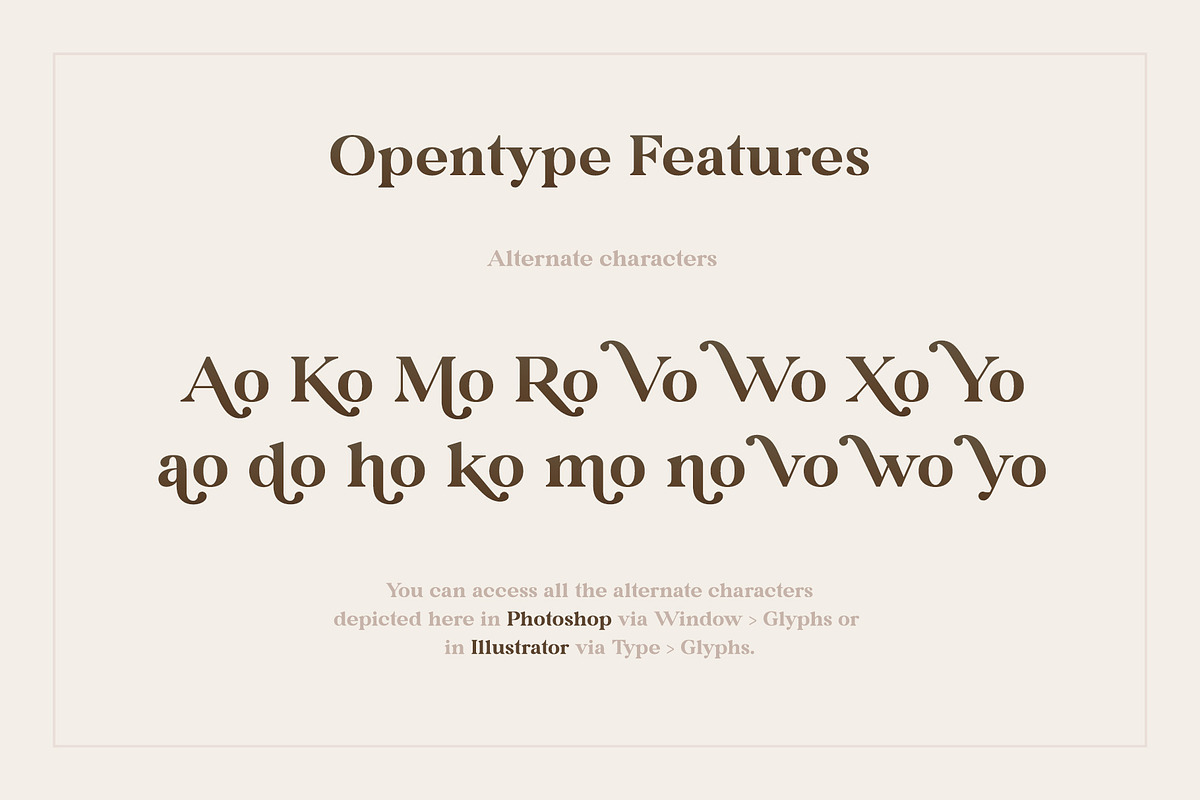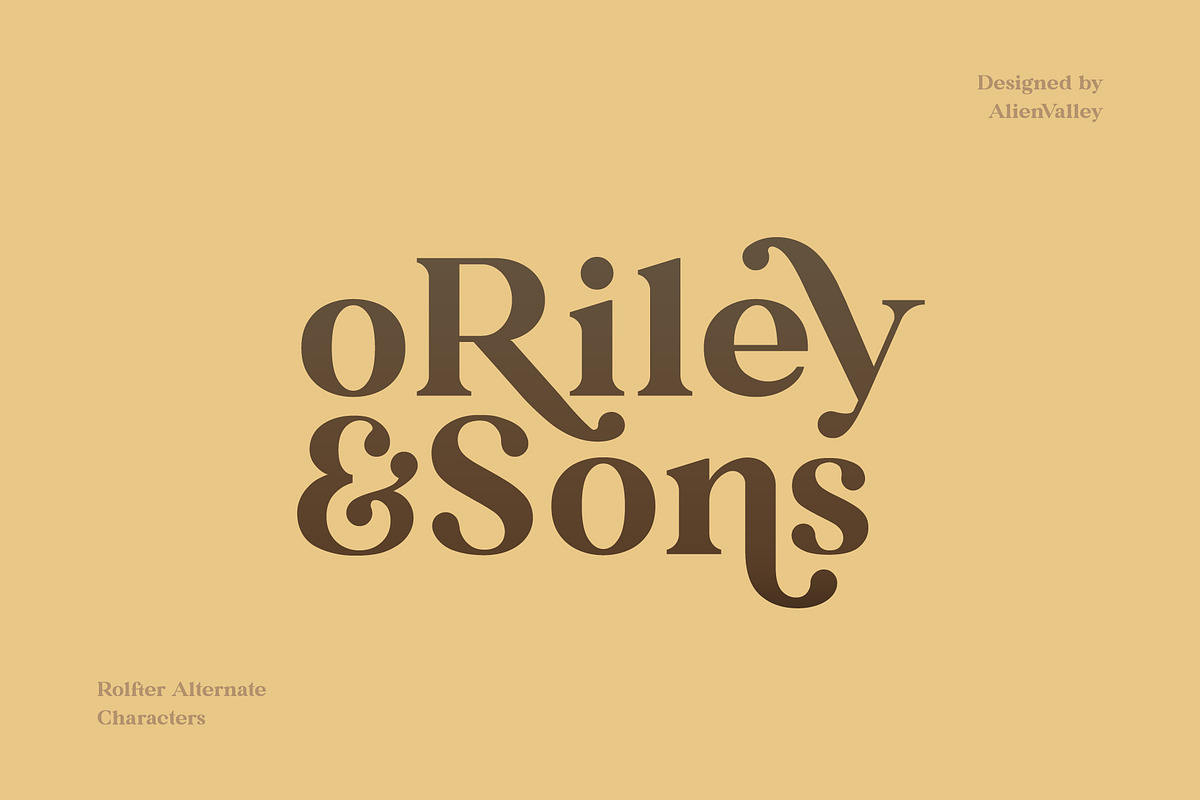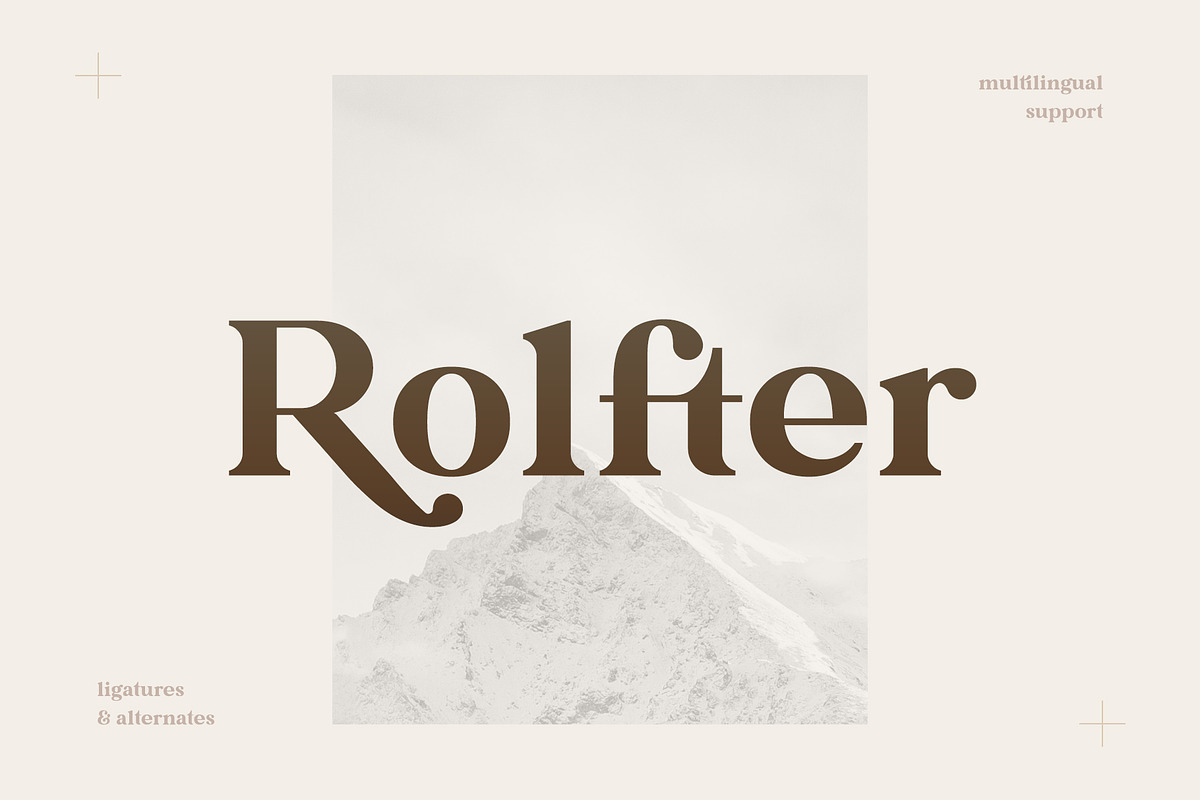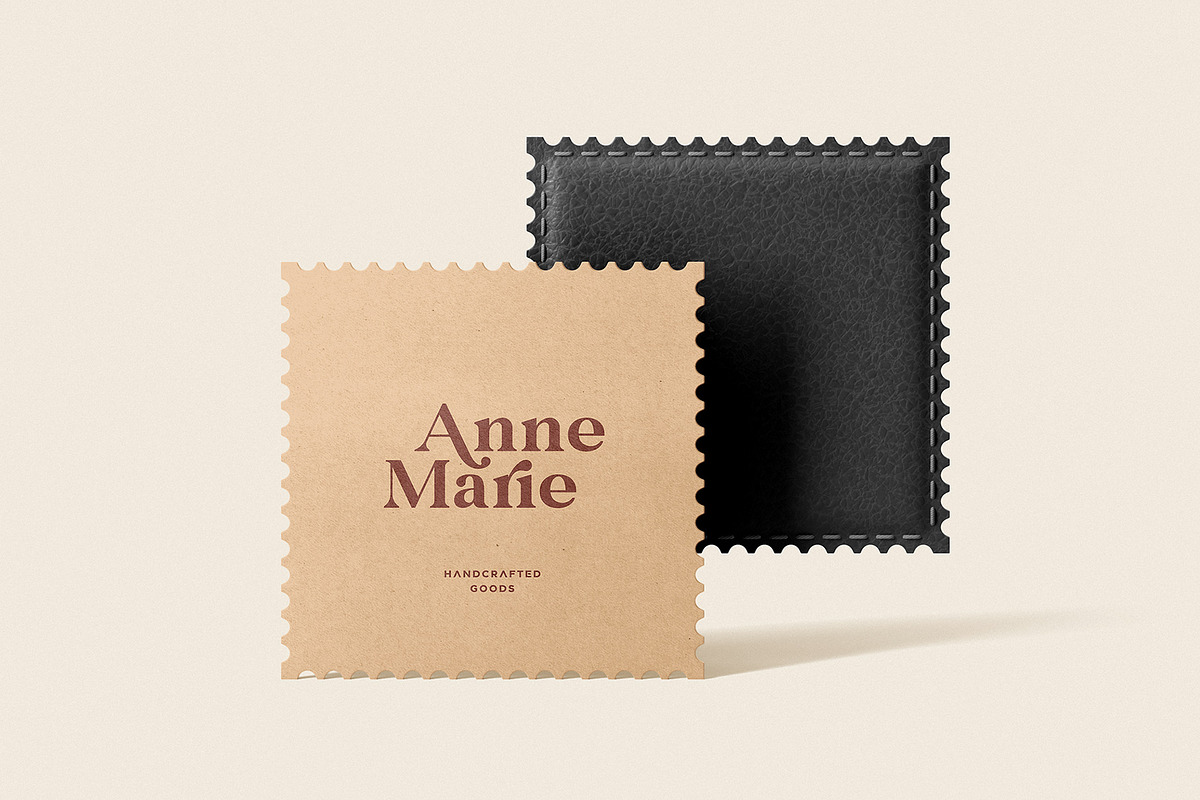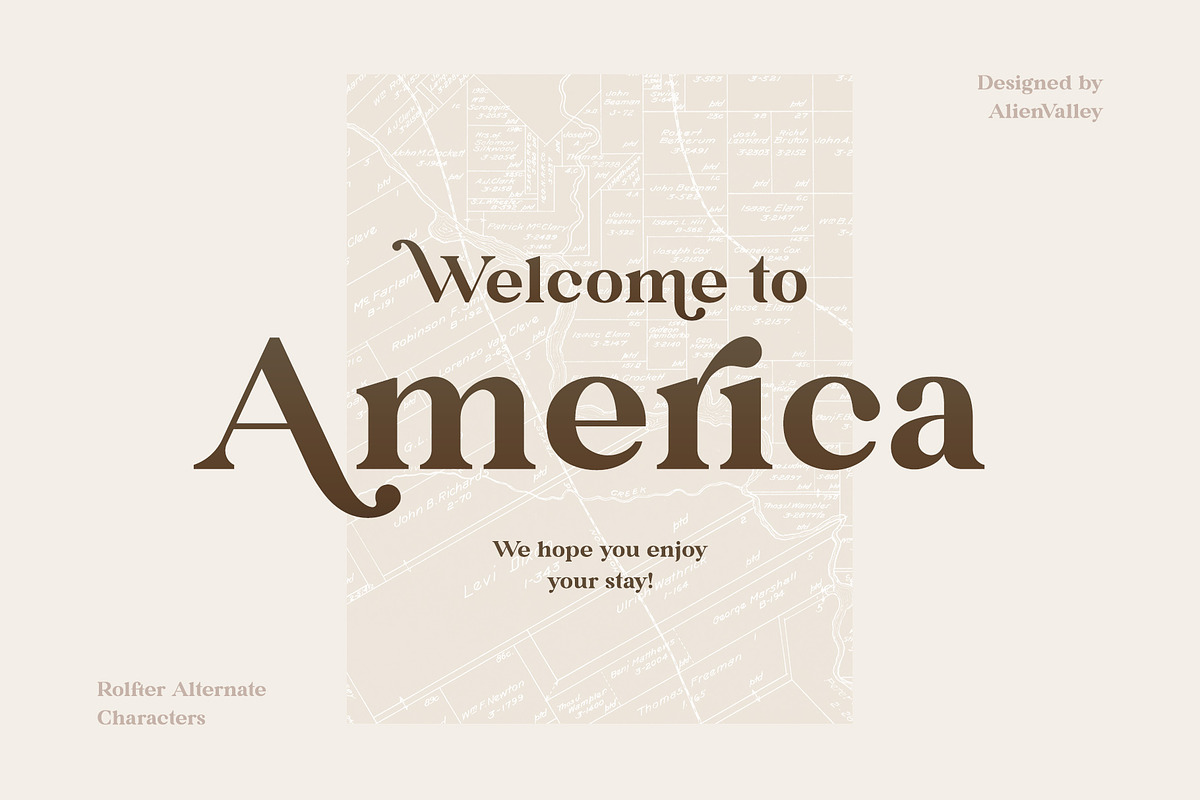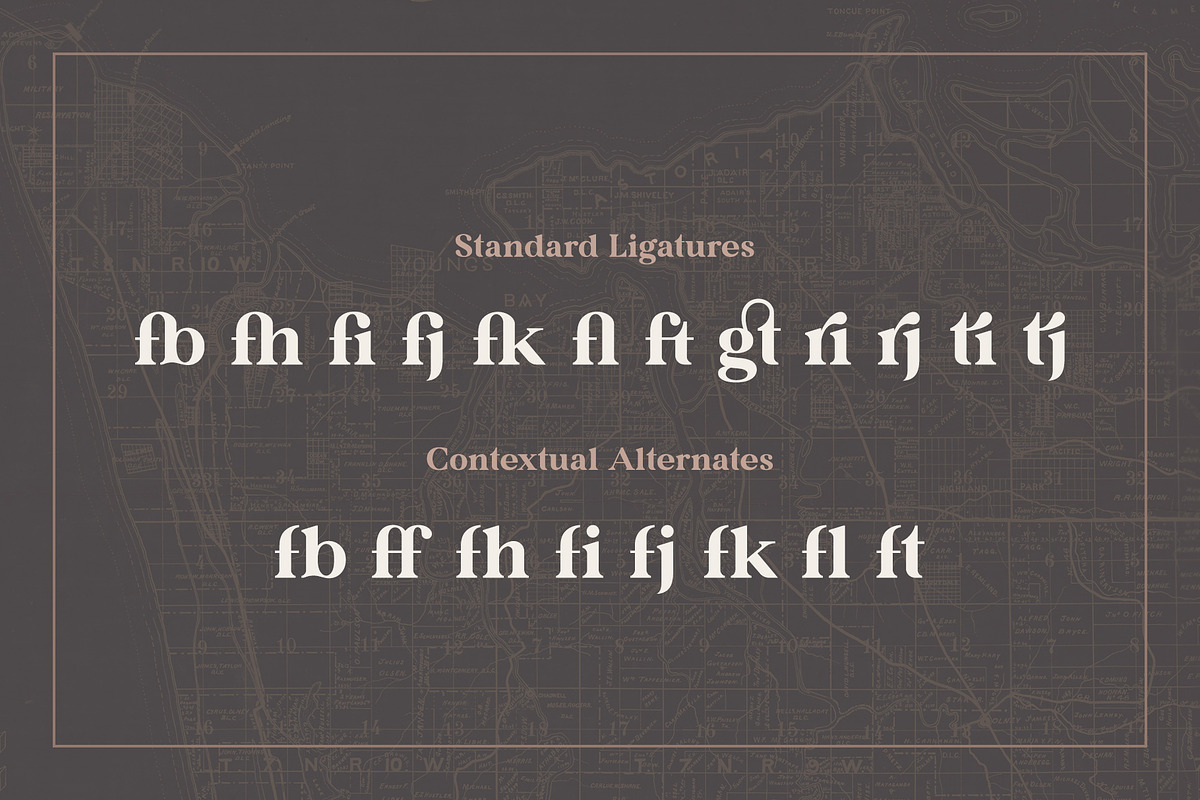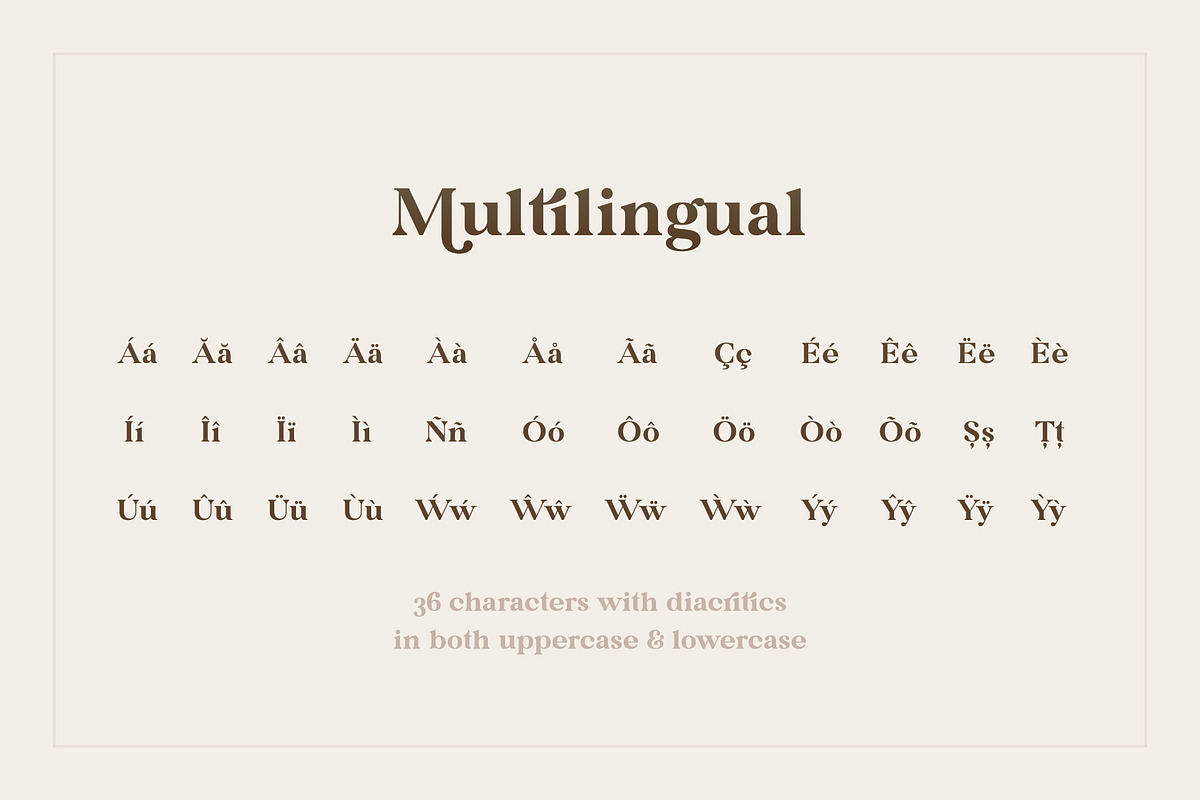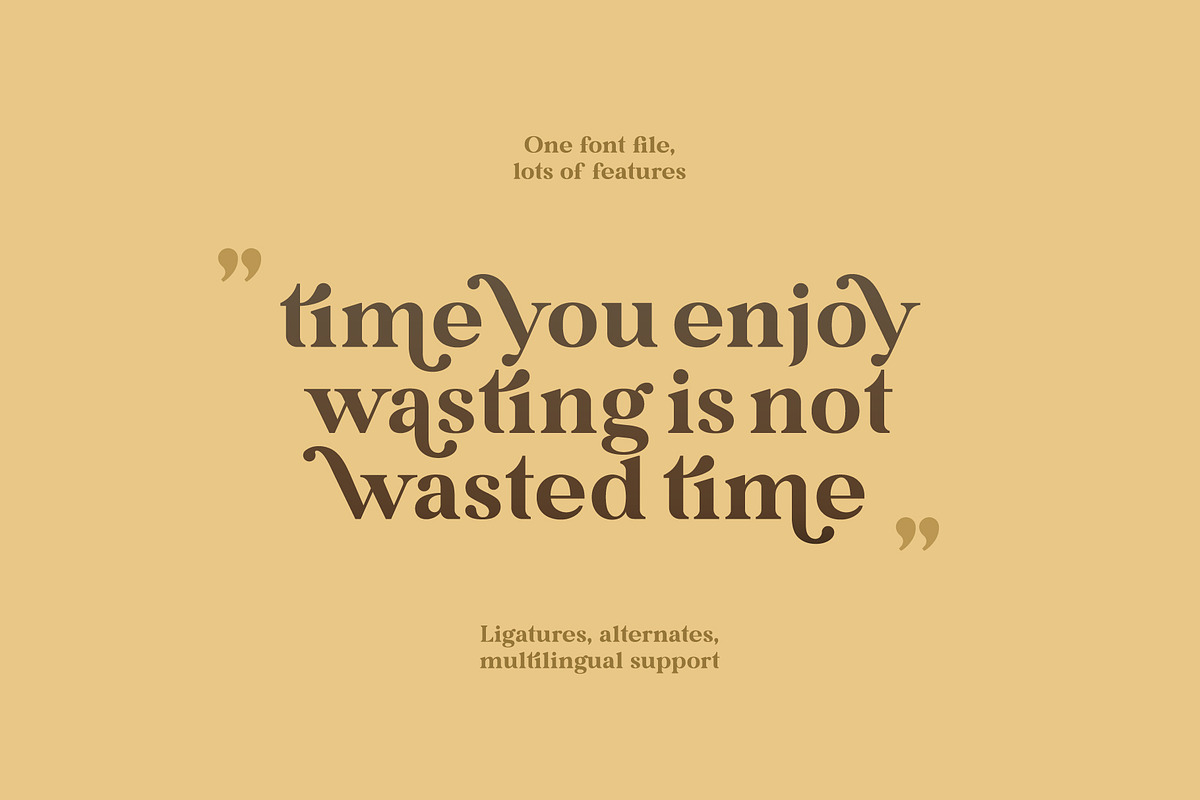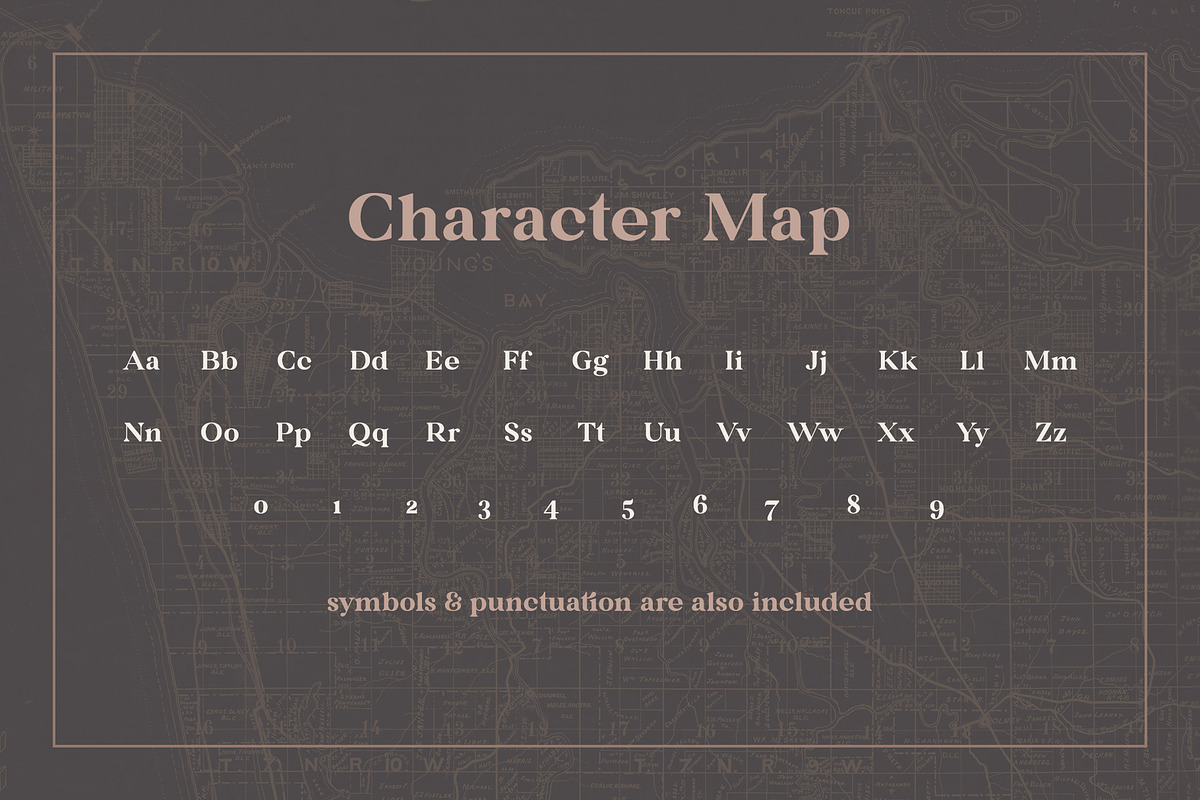
Rolfter - Classic Serif
Introducing Rolfter, a classic serif typeface with many features including ligatures, tons of alternates and multilingual support. All the ligatures and alternates can be accessed by installing just one font file.
LIGATURES & CONTEXTUAL ALTERNATES
OPTIONAL ALTERNATES
These are optional alternates that can be used depending on your current design. We recommend moderate use of these for optimal results as using too many can easily make the font unreadable. To access these you need to open the following panels depending on your software: